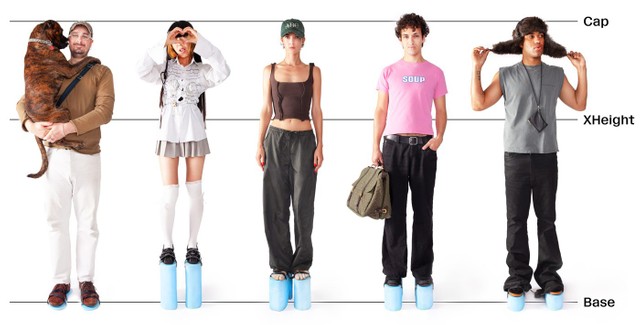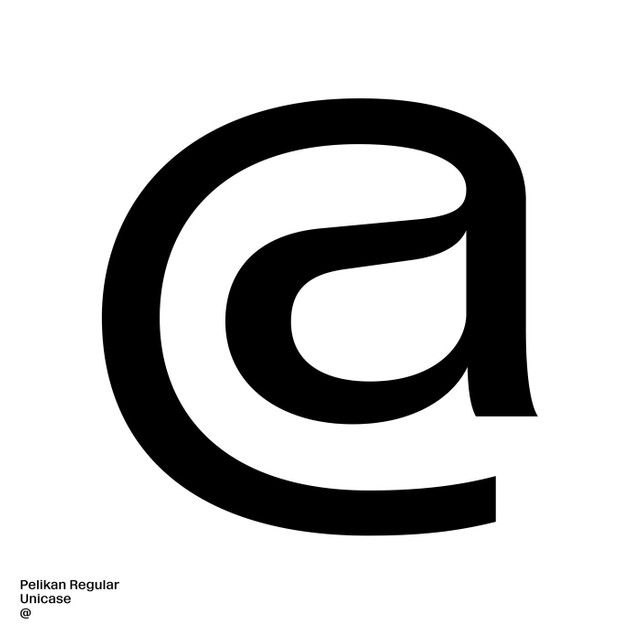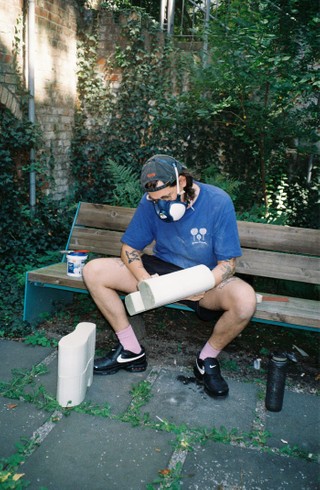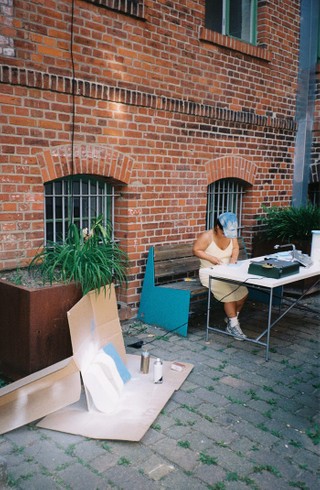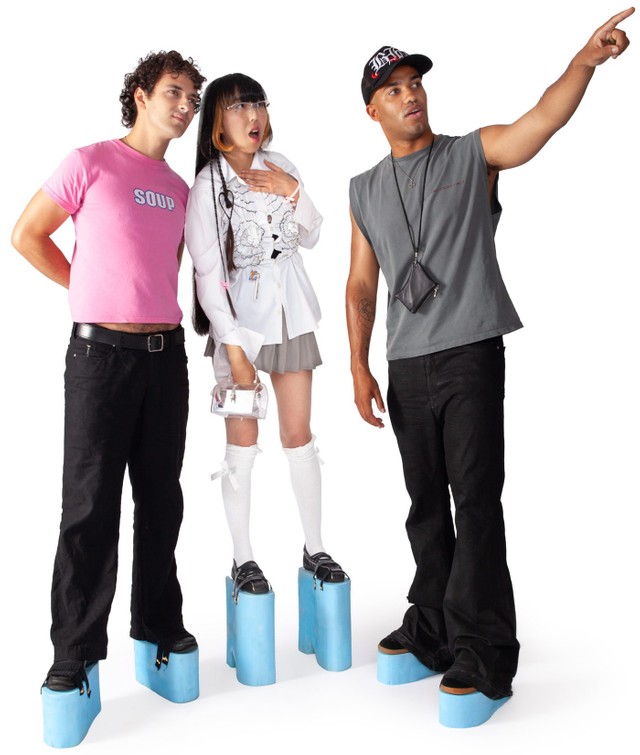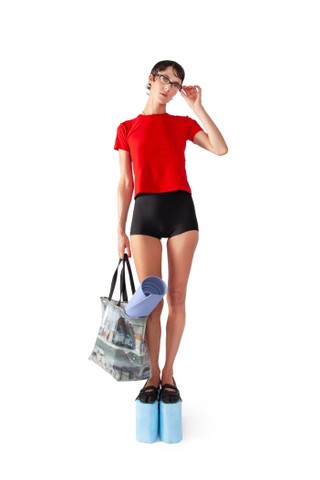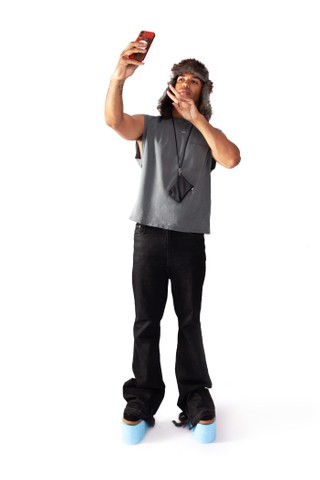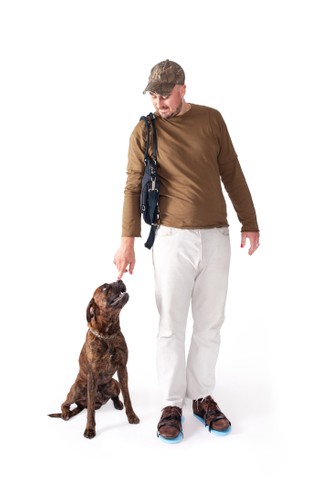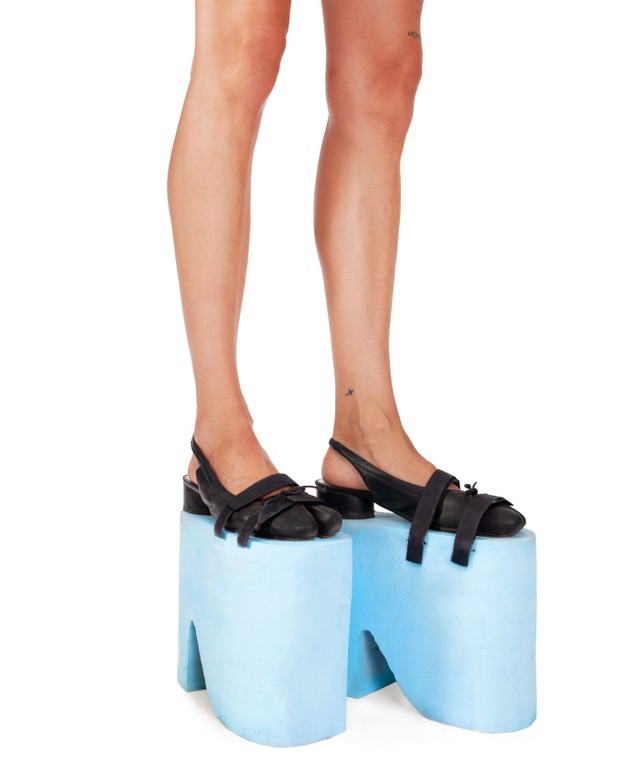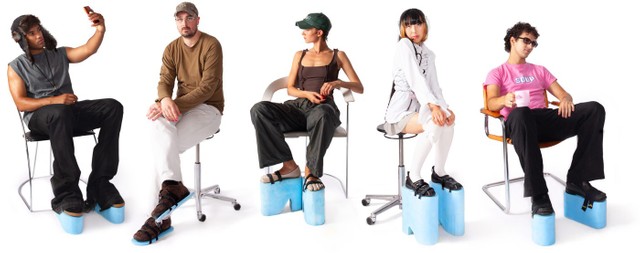
We’re releasing Pelikan today, an unpolished sans with a special unicase feature baked inside, which lets you extend all letters—big or small—to the same height.
Modernists in the 1920s waged a “fight against capital letters,” writing all their messages strictly in lowercase characters. In the ’70s, the search for an “egalitarian” type treatment continued, leading designers to the short-lived concept of unicase.
Today, we're releasing ABC Pelikan by throwing our very own same height party. You’re invited. Height = the same, vibe = insane.
VIBE
In its default form, Pelikan is a low-contrast Neo-grotesque that’s both raw and approachable with an unpolished, blunt feel. Its unusually large x-height gives it a confident stance and presence.
Pelikan has two unicase features available via Stylistic Sets, letting you jump between the default look and our same height variations. The unicase versions are playful, wild, and dynamic. I like to think of them as Kurt Schwitters-meets-ransom-note.
STYLES & FAMILIES
Pelikan is available in Condensed, Normal, and Expanded widths, plus eight weights from Thin to Black. As a variable font, you can explore the entire width and weight range. A brutal slant is also available for each style.
UNICASE FEATURE
Pelikan has two unicase settings. Unicase 1 is uppercase heavy, with only a few lowercase letterforms sprinkled in. This setting feels solid and sturdy in text blocks. Unicase 2, on the other hand, is jumbled and playful, a happy mismatch of uppercase and lowercase forms of the same height.
I like to imagine how the default Pelikan and unicase Pelikans could pair together for branding projects.
TRIANGULAR DOTS
If you want to add a dash more personality to this workhorse, triangular dots are also available as an alternate to Pelikan’s otherwise boxy dots. These flourishes feel iconic to me, especially when paired with the mono slab i alternate.
KEY CHARACTERS
There are a few particular characters that give Pelikan its authentic flair. I’m particularly fond of the lowercase f, with its elongated crossbar and tubular hood. The numbers also feature special quirks, like the overhanging roof of the 5.
BTS
Masterminded by Berlin’s finest design gang Veryes, Pelikan’s campaign plays homage to artist Hans Hemmert’s Level (1997), an artwork originally produced for the Personal Absurdies show at Galerie Gebauer in Berlin. For the event, Hemmert hosted a party where guests wore blue shoe-extenders to bring them all to the same two-metre height. The idea was to literally put everyone on eye level.
Pelikan was designed by our own Fabiola Mejía and Fabian Harb.